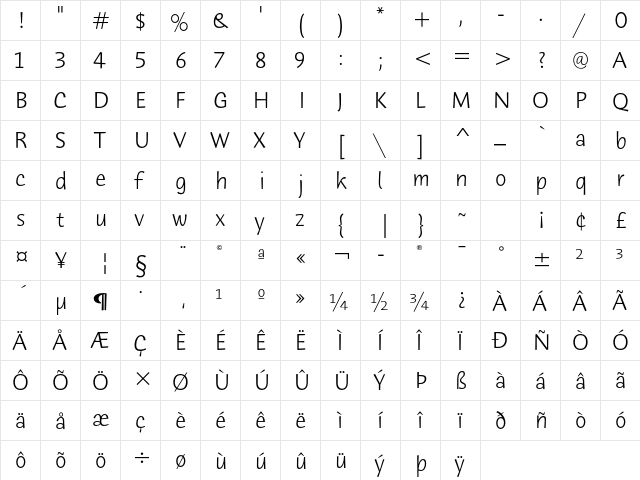
Humana Sans ITC Std Light Font Preview
Humana Sans ITC Std Light
Humana Sans ITC Std Light Font Details
| Designer | Timothy Donaldson |
Design Context for Humana Sans ITC Std Typeface
Humana Sans ITC Std takes a measured approach to typography — its balanced proportions and neutral character make it a reliable workhorse for both digital and print work. Its slender proportions lend an understated elegance to any composition.